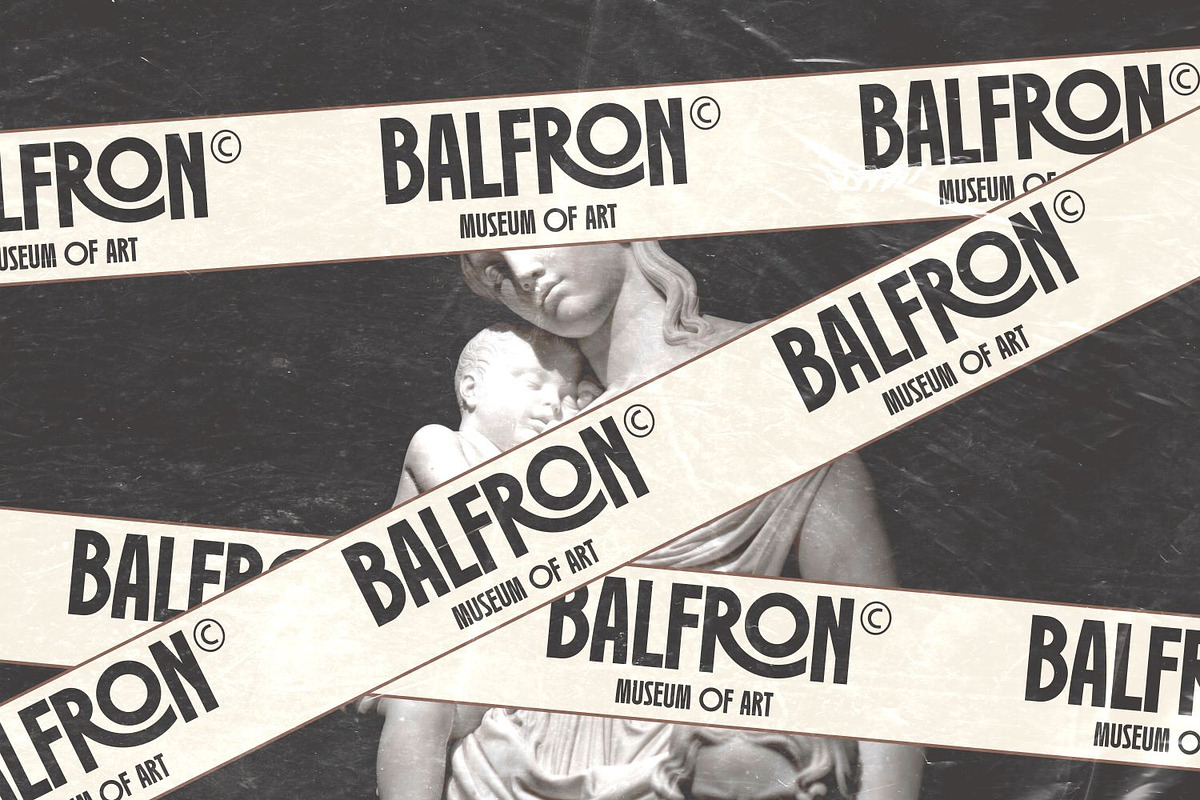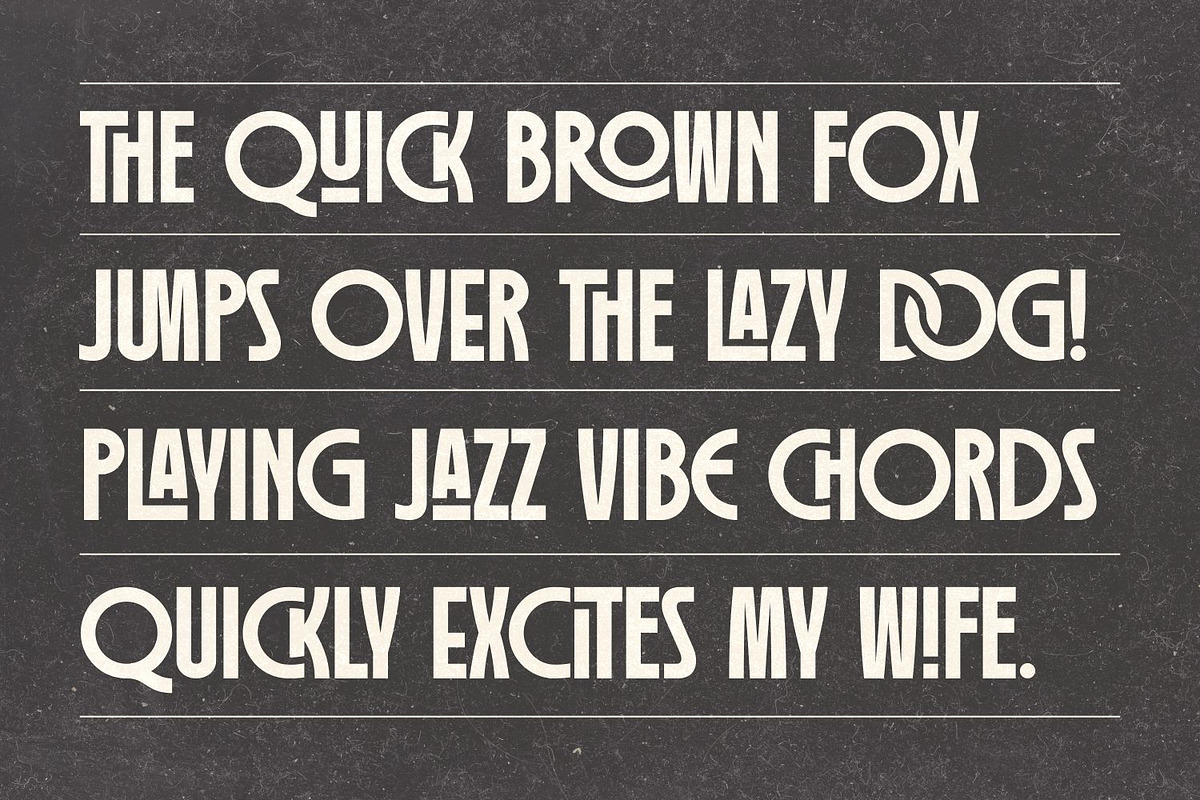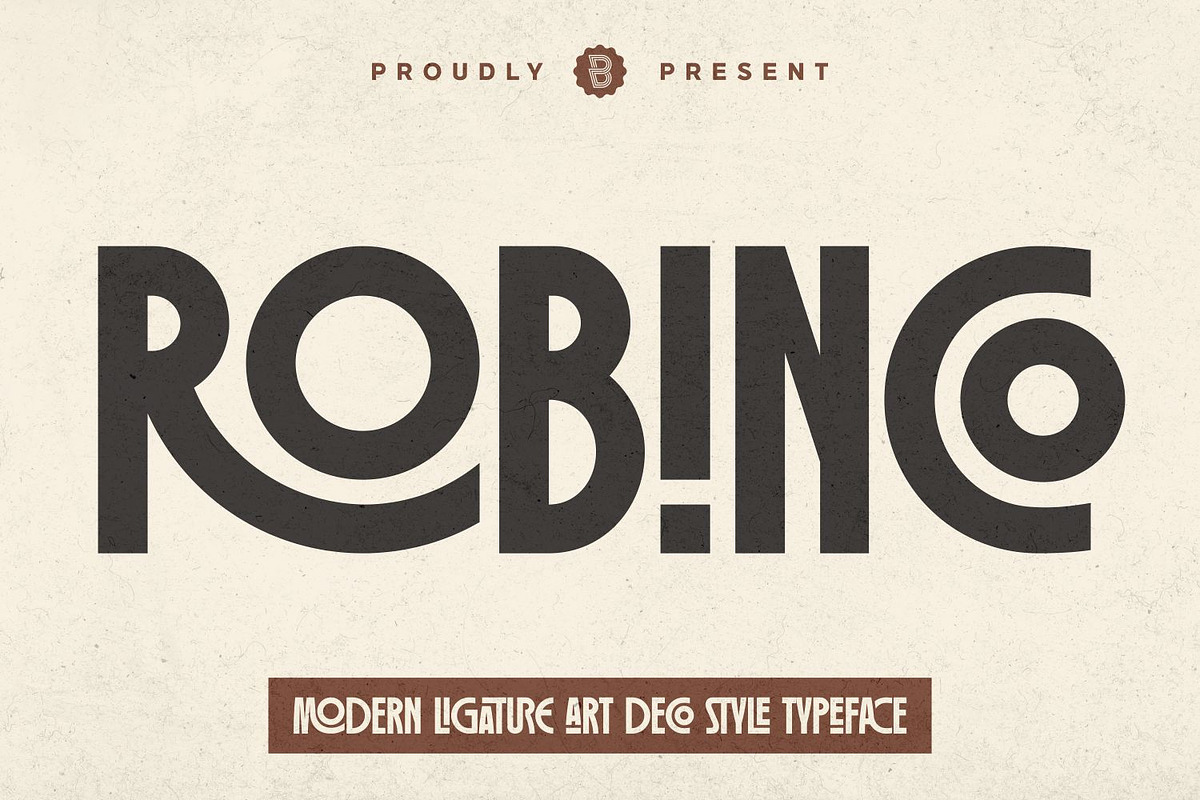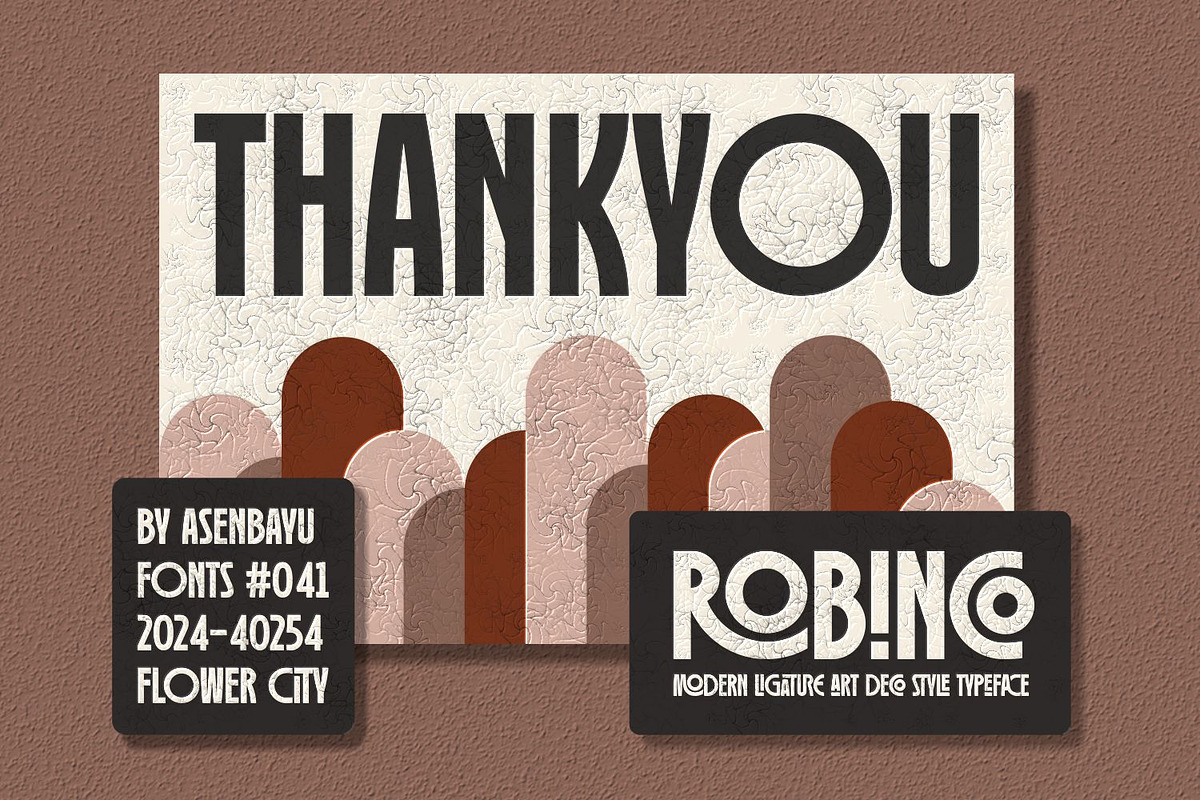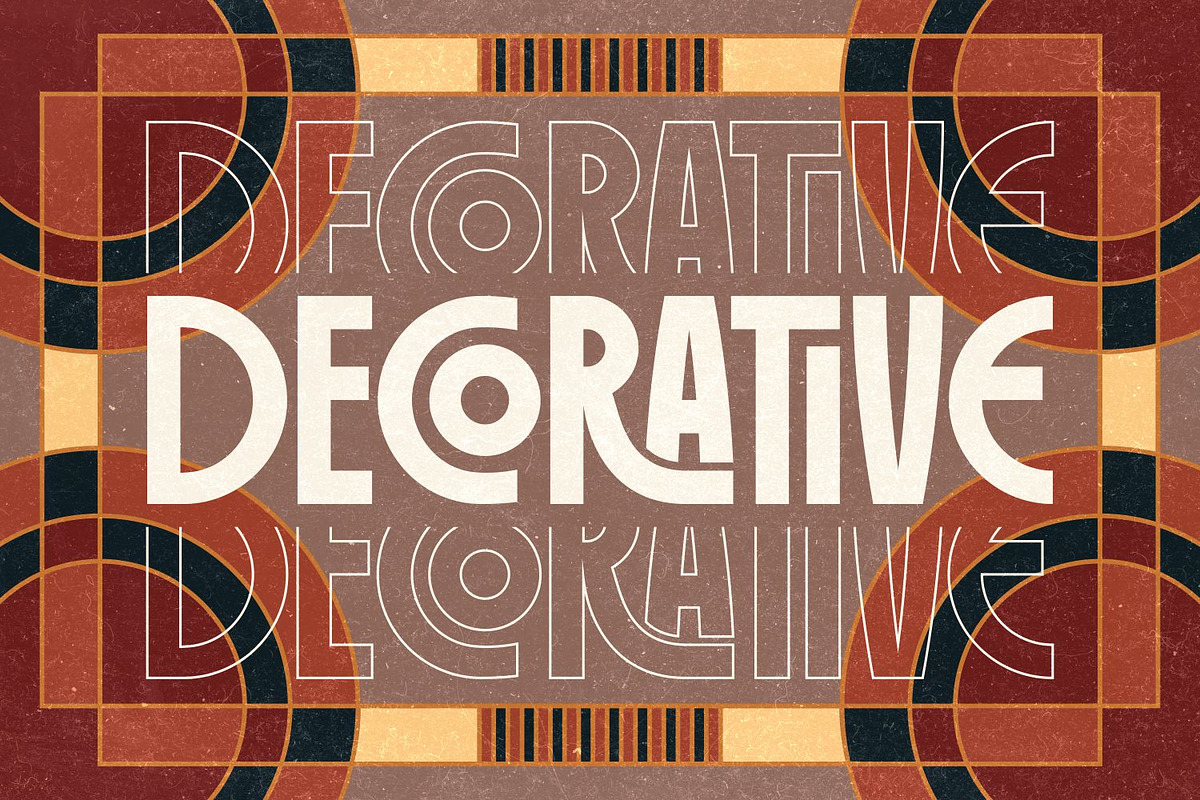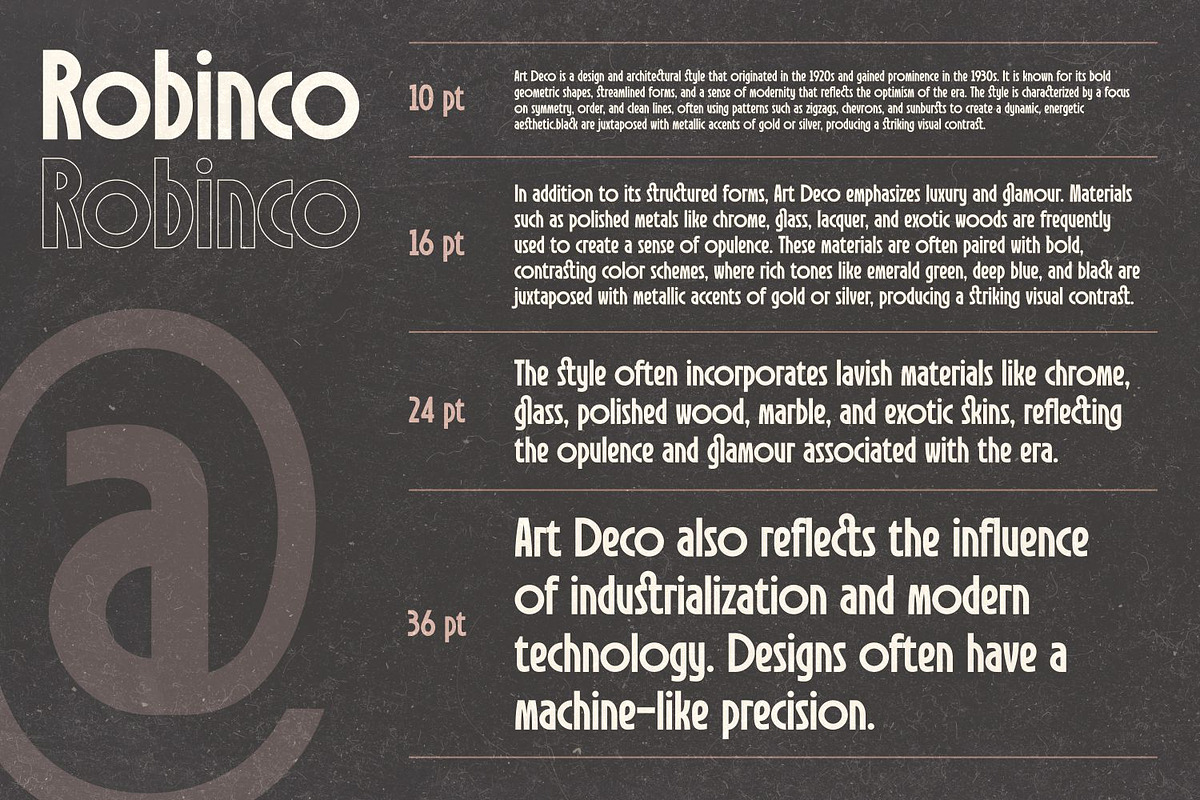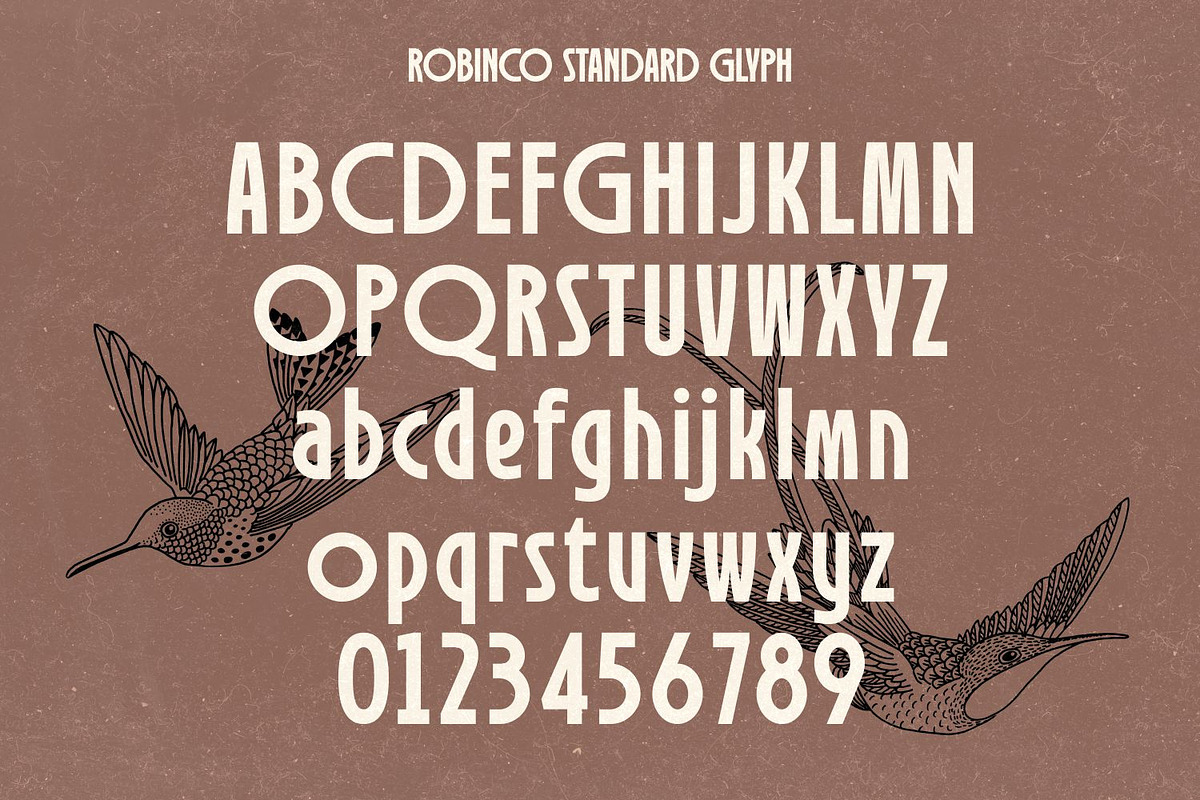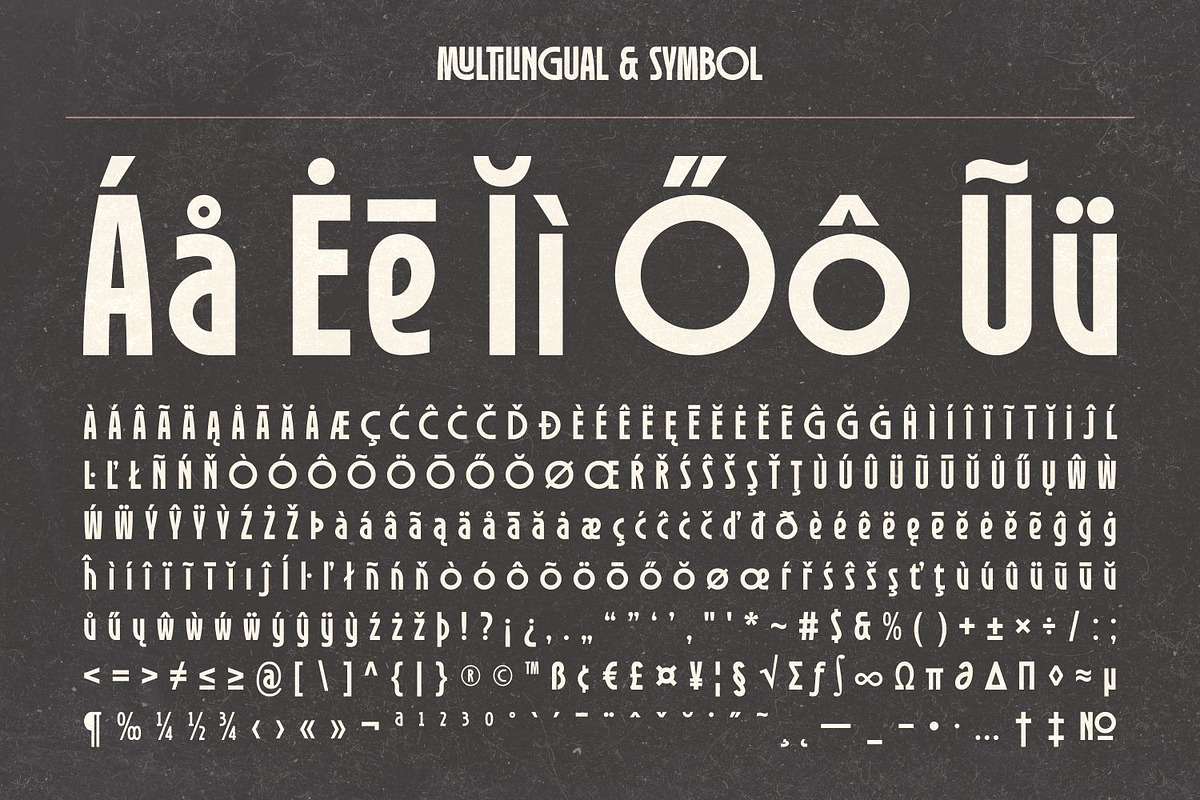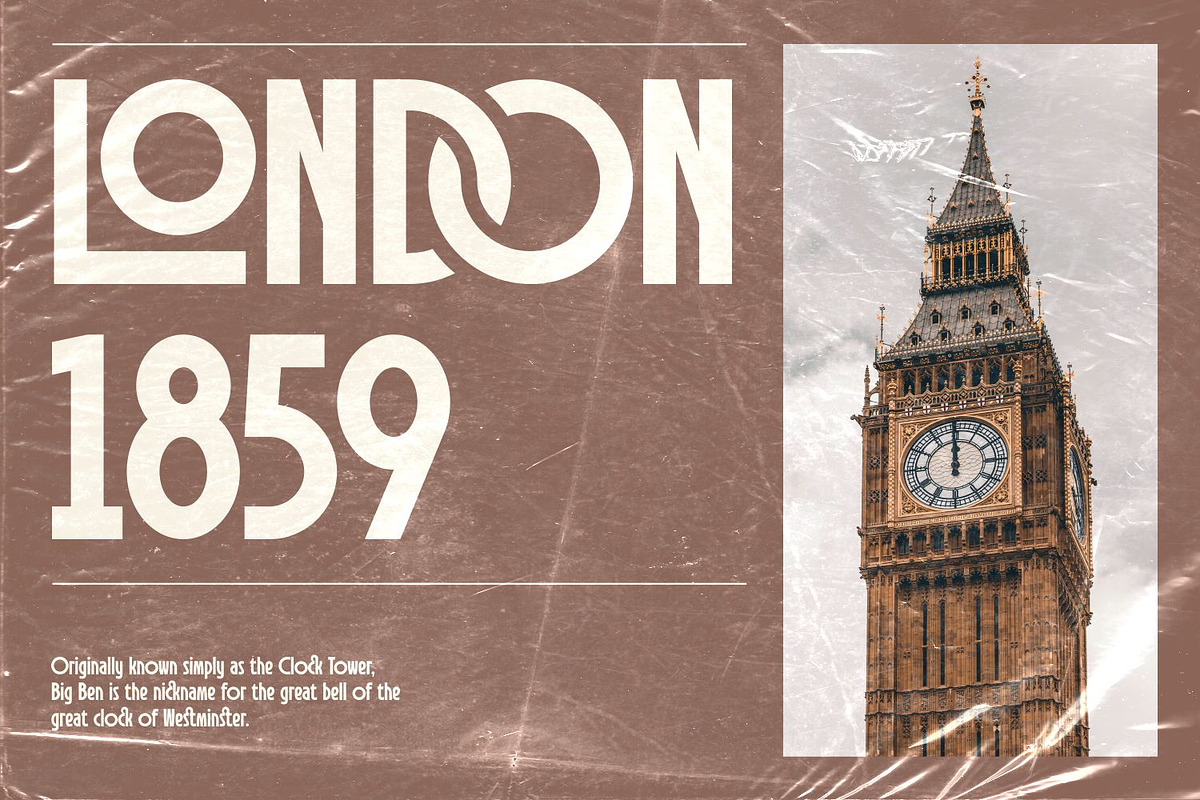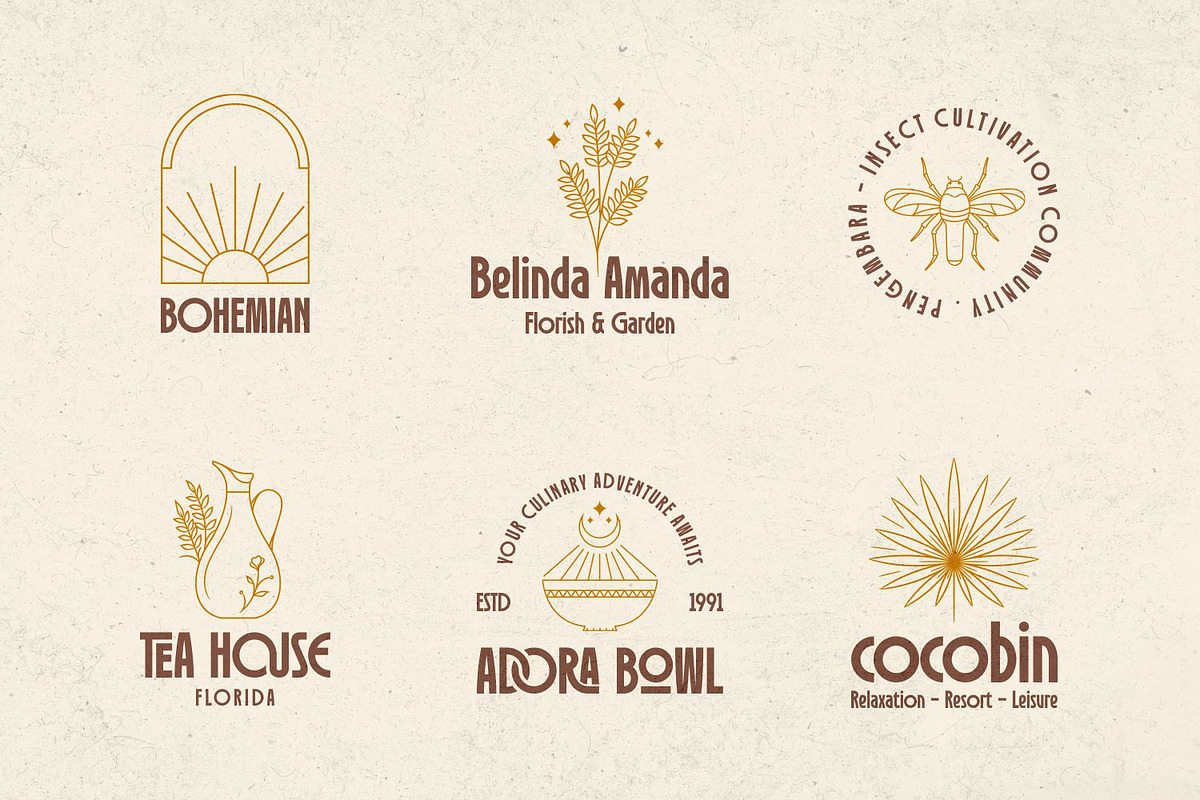
Robinco - Ligature Art Deco Font
Robinco is modern ligature art deco style font. This font embody a timeless combination of luxury, boldness, and geometric elegance, making them perfect for designs that seek to evoke a sense of classic sophistication and modernity. This font is suitable for trendy packaging label designs, unique desired logos, poster designs, fashion and many more.
Robinco font features: Standard glyph, stylistic alternates, stylistic ligatures, symbol, punctuation and multiple languages supported.